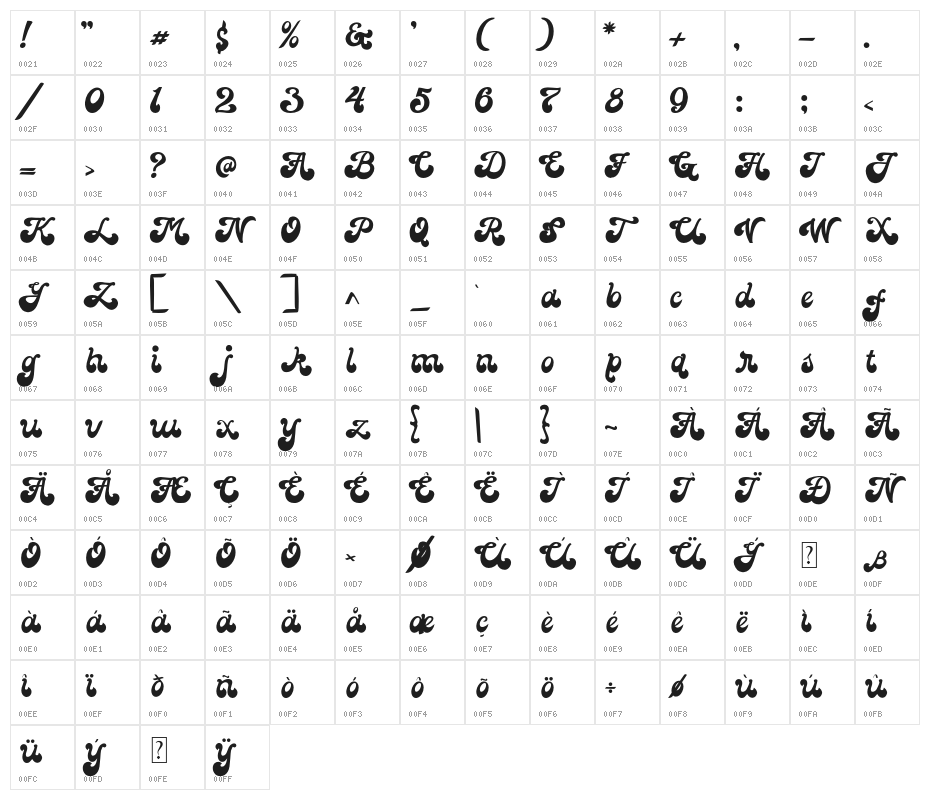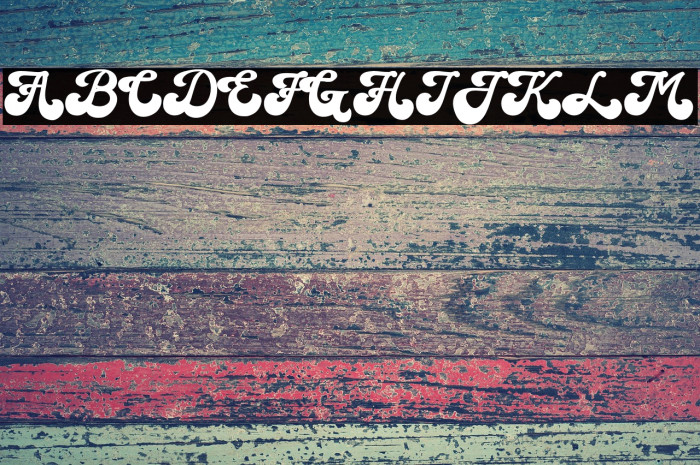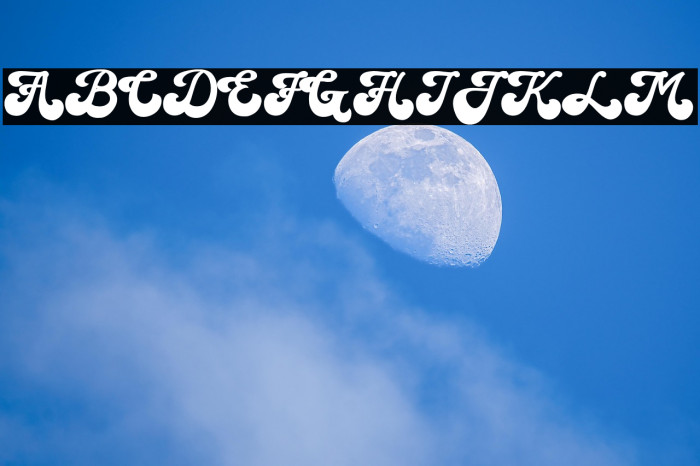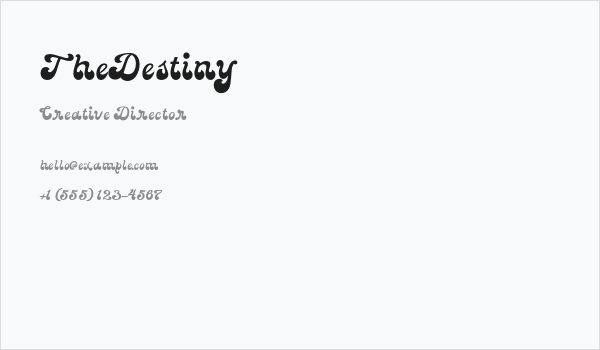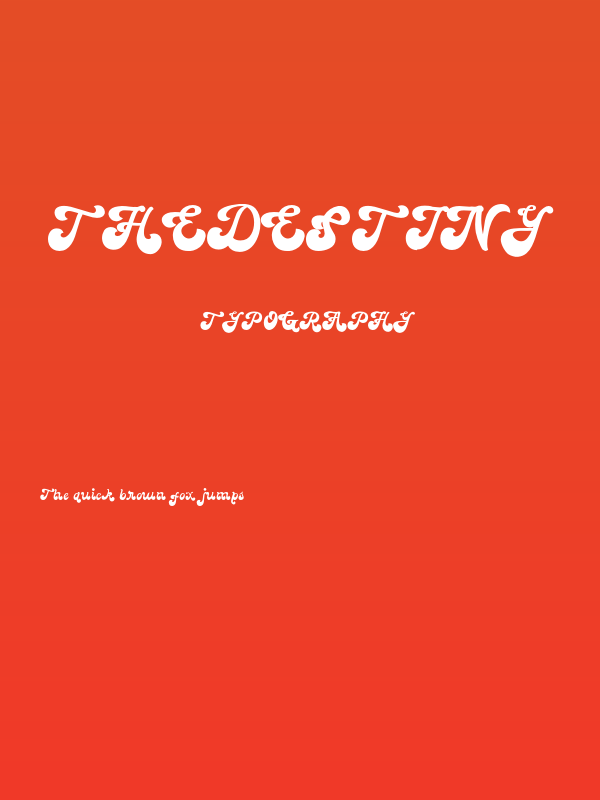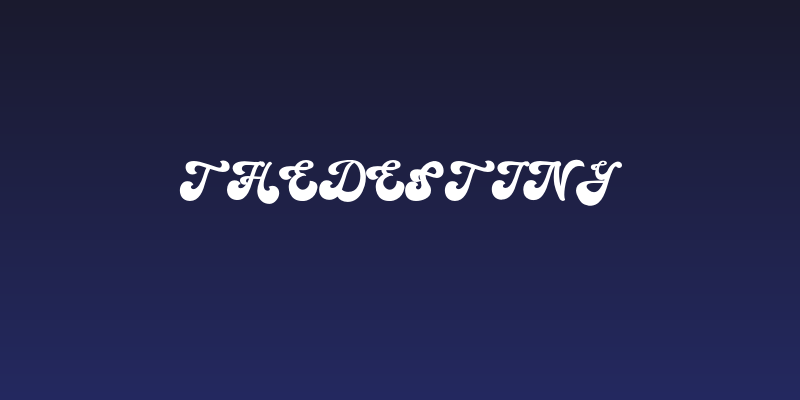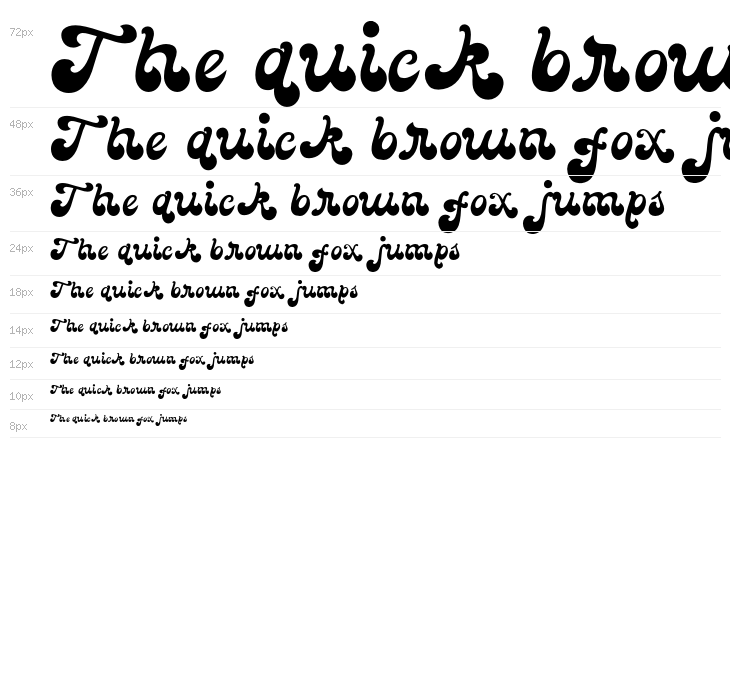
TheDestiny Font
TheDestiny Description
This font features a bold and playful style with a strong emphasis on rounded, flowing curves. Each character is designed with a whimsical flair, incorporating exaggerated loops and swirls that give it a lively and dynamic appearance. The uppercase letters maintain a consistent height, while the lowercase letters exhibit a charming bounce, adding to the font's overall playful nature. Numbers and special characters are equally expressive, ensuring a cohesive look across all elements. The thick strokes and high contrast between the thick and thin parts of the letters enhance its decorative appeal, making it suitable for eye-catching designs.
| Overall Style | Playful, Decorative |
| Use Case | Logos, Headlines, Posters |
| Proposed Projects | Ideal for children's books, playful branding, party invitations, and decorative posters. |